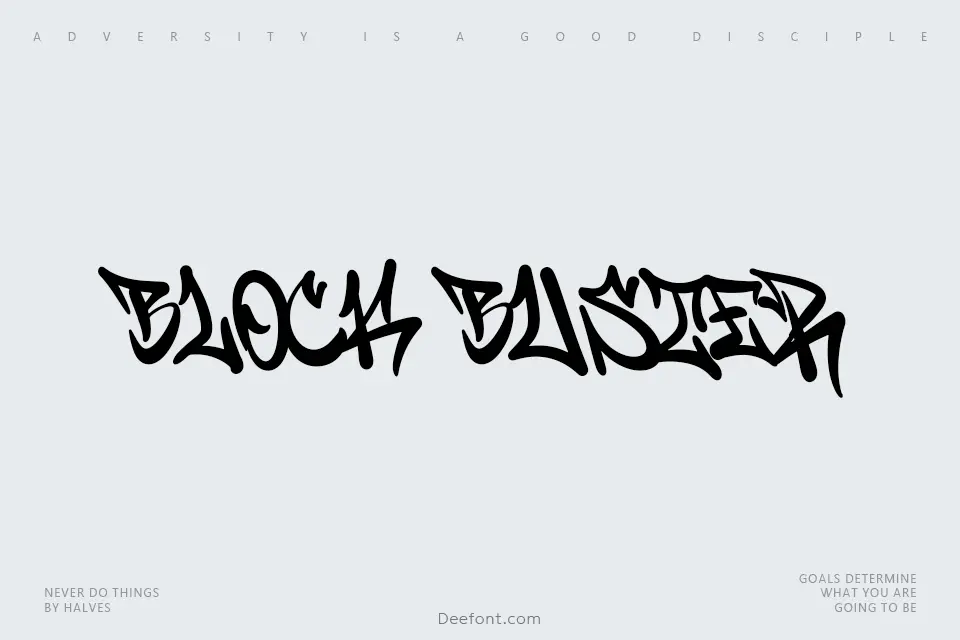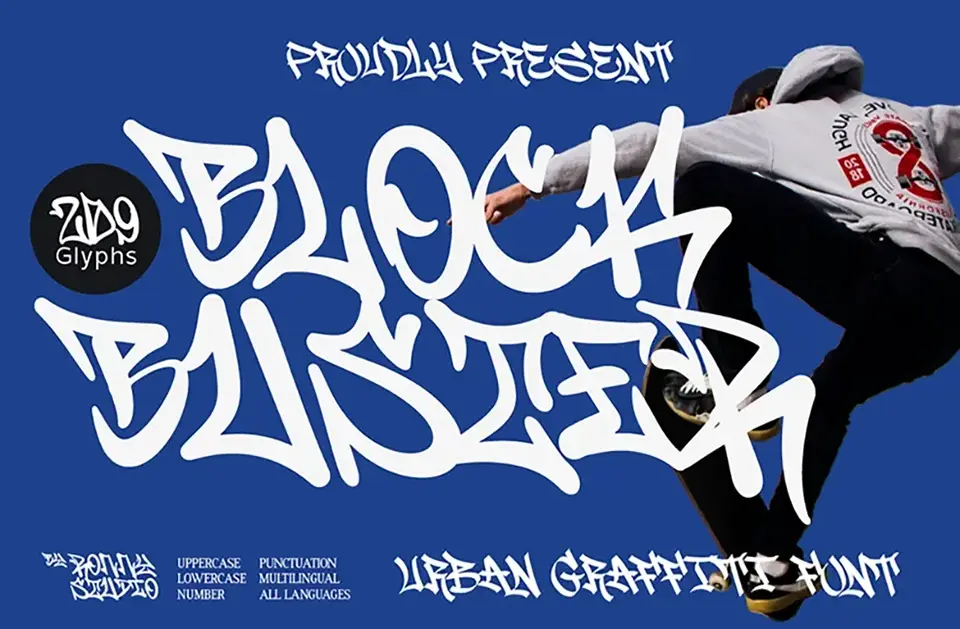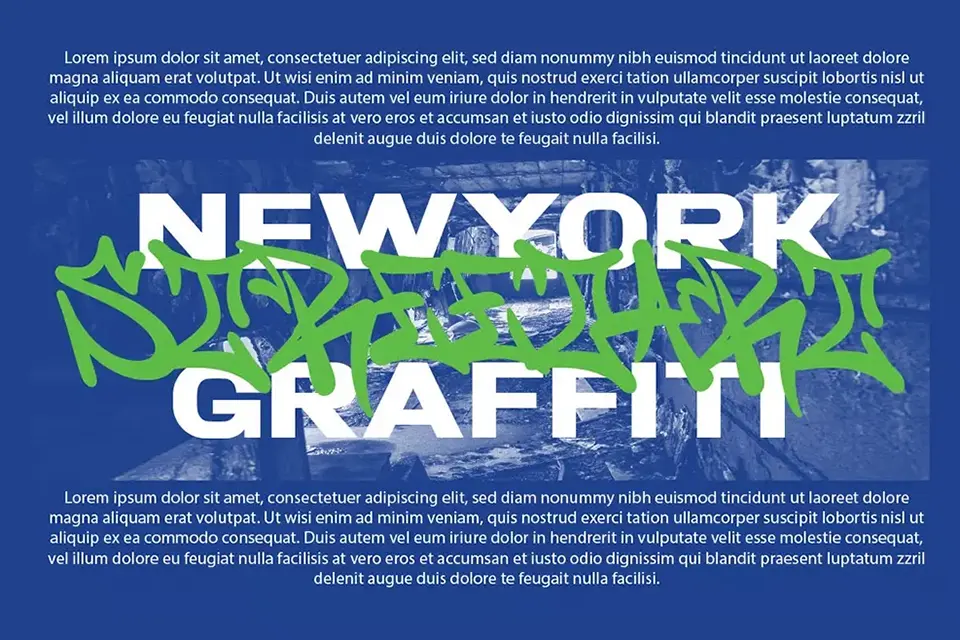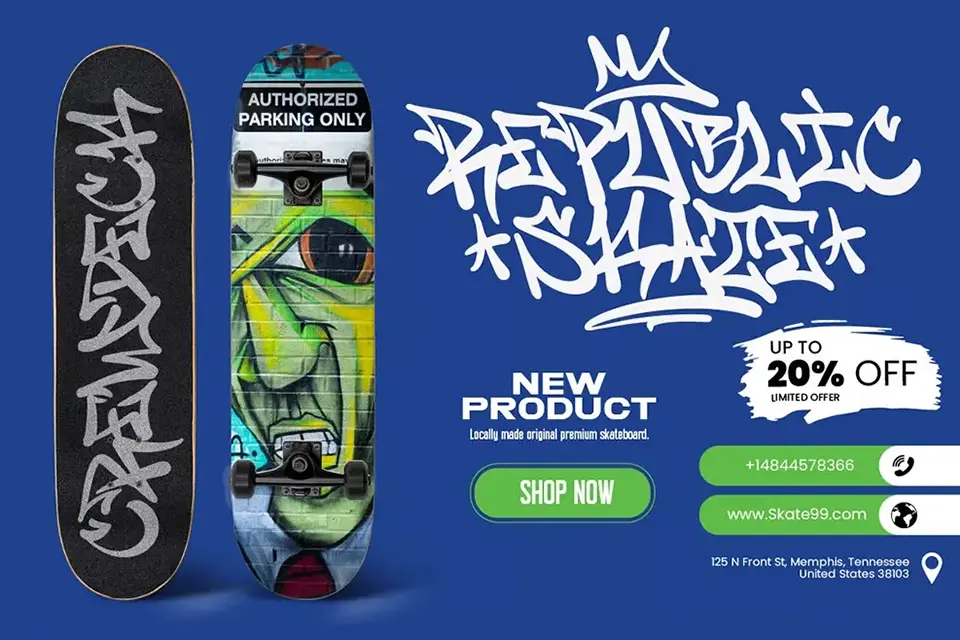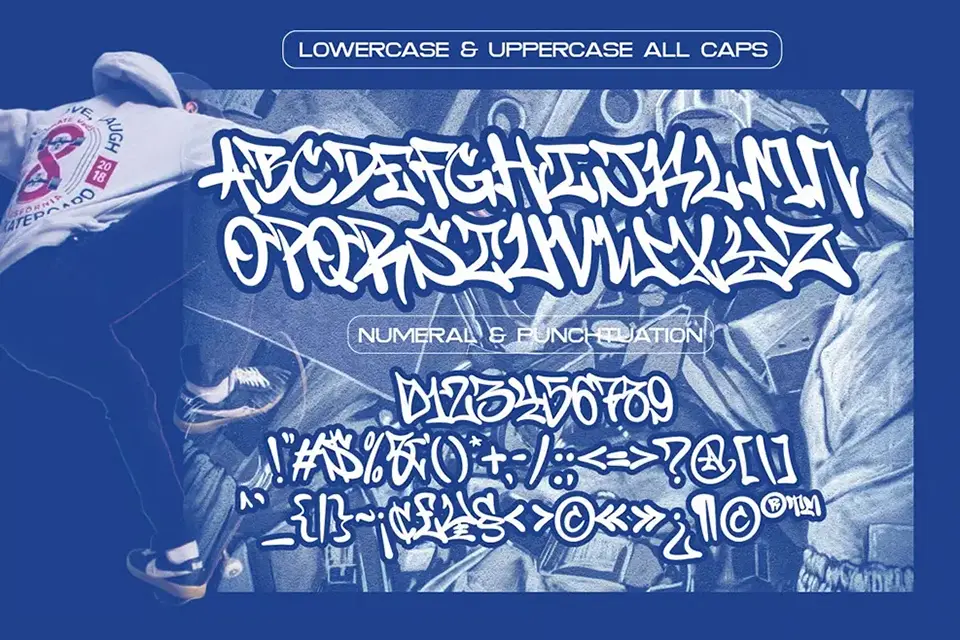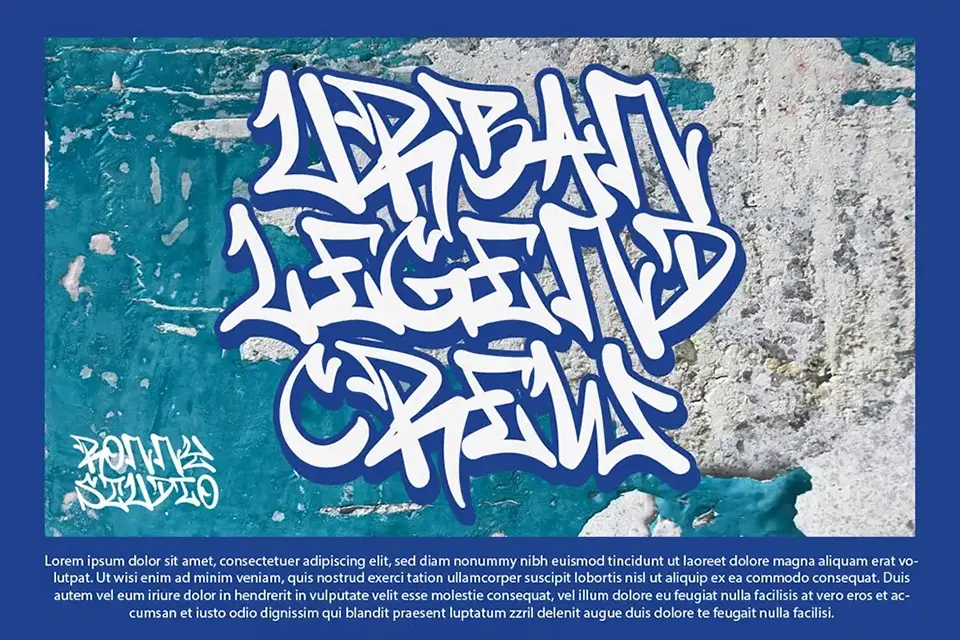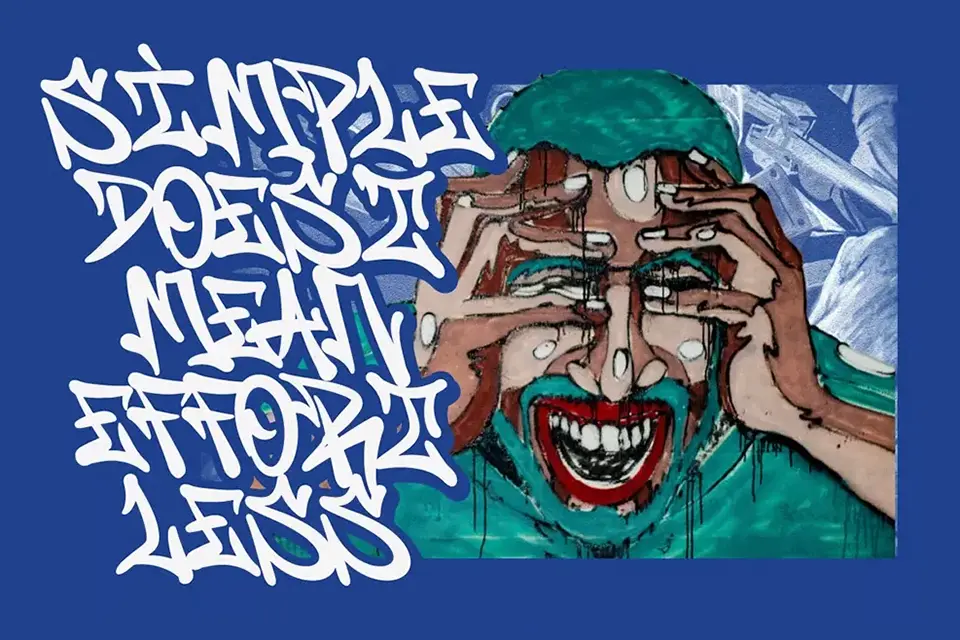
Block Buster Font
Block Buster is an urban graffiti font characterized by sharp edges and bold strokes, bringing the raw energy of street art into your creative projects. With its edgy, handcrafted letterforms and rebellious spirit, this display font is perfect for posters, music graphics, apparel designs, and streetwear branding that demands bold, expressive typography.